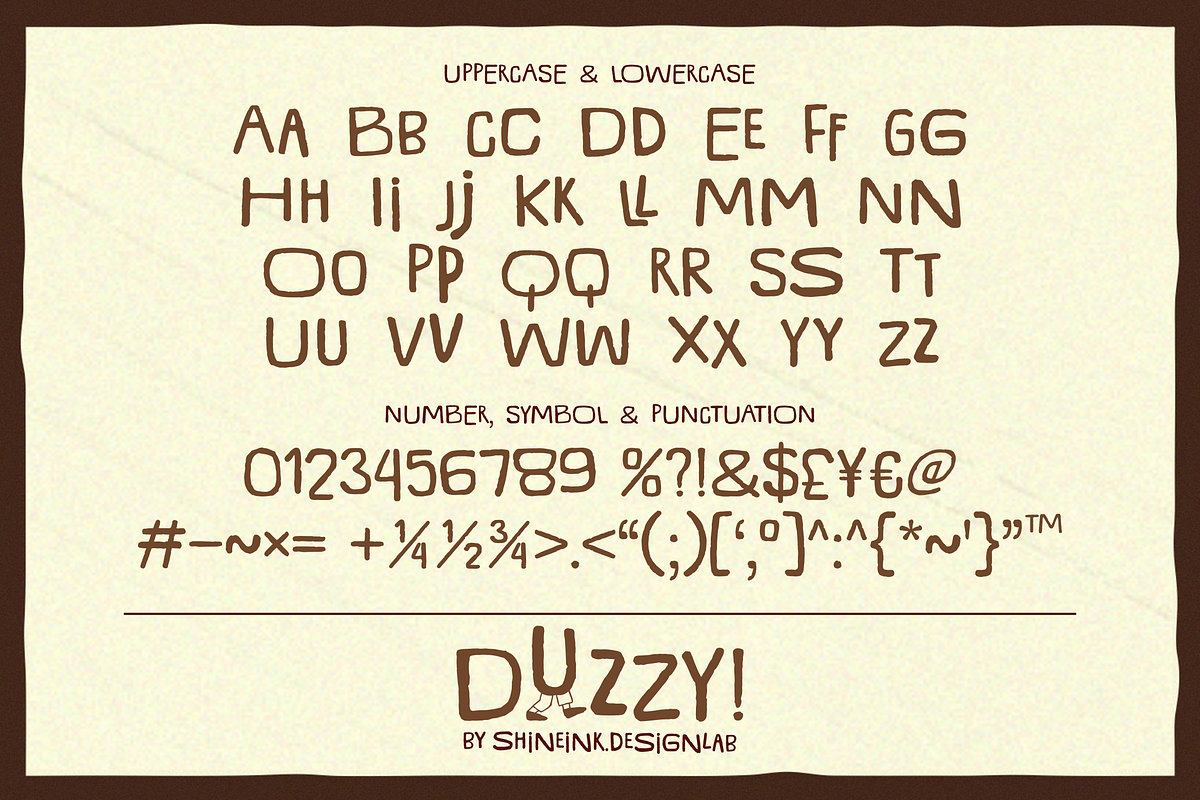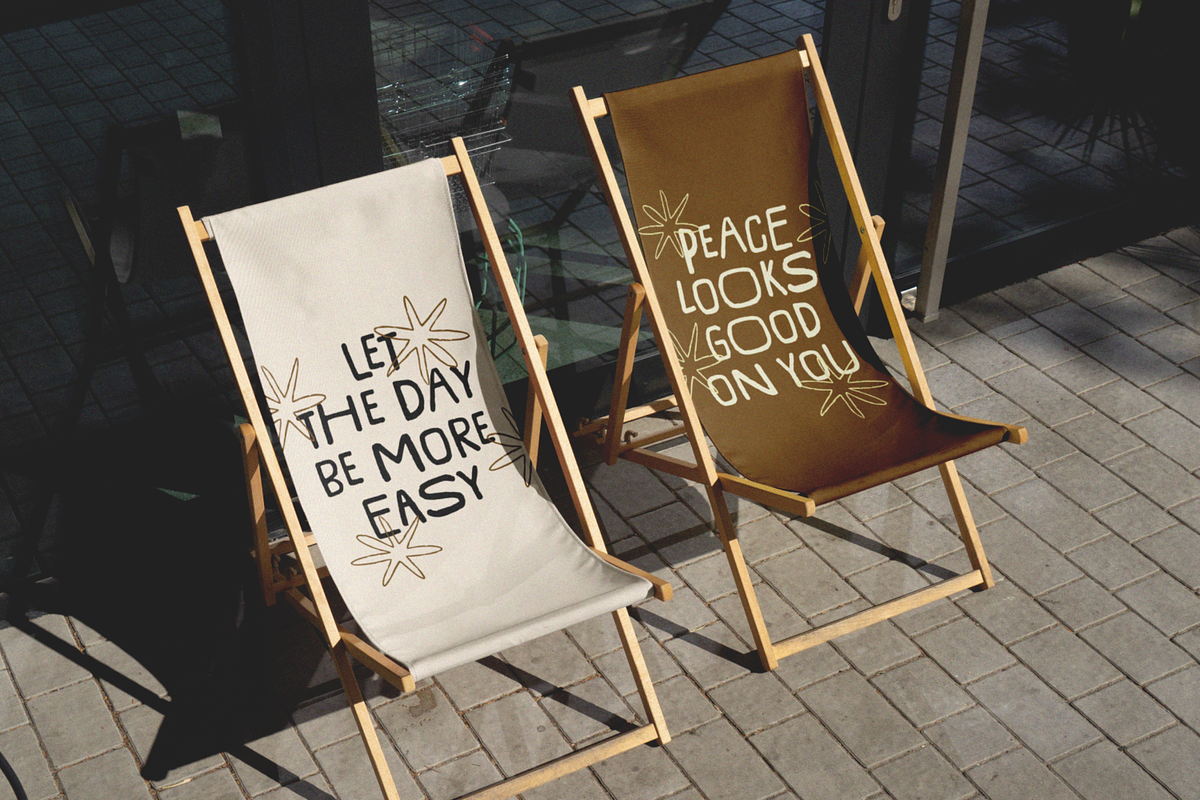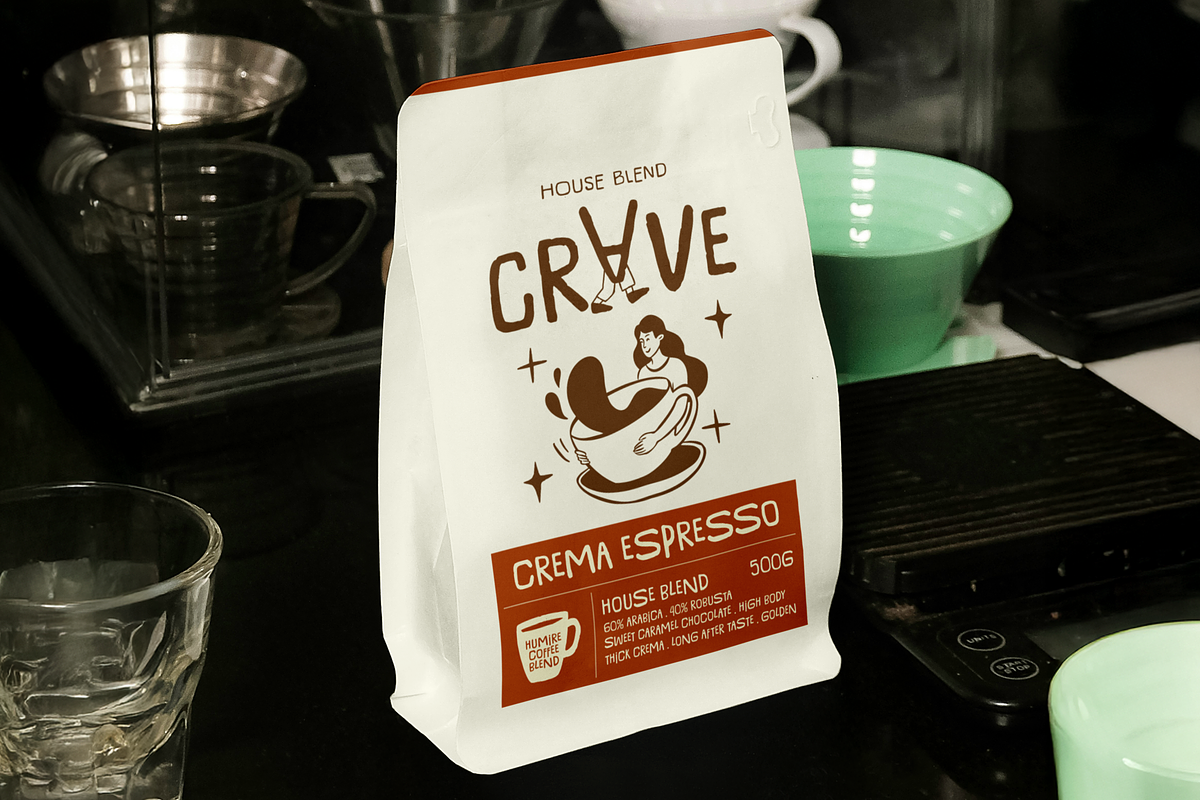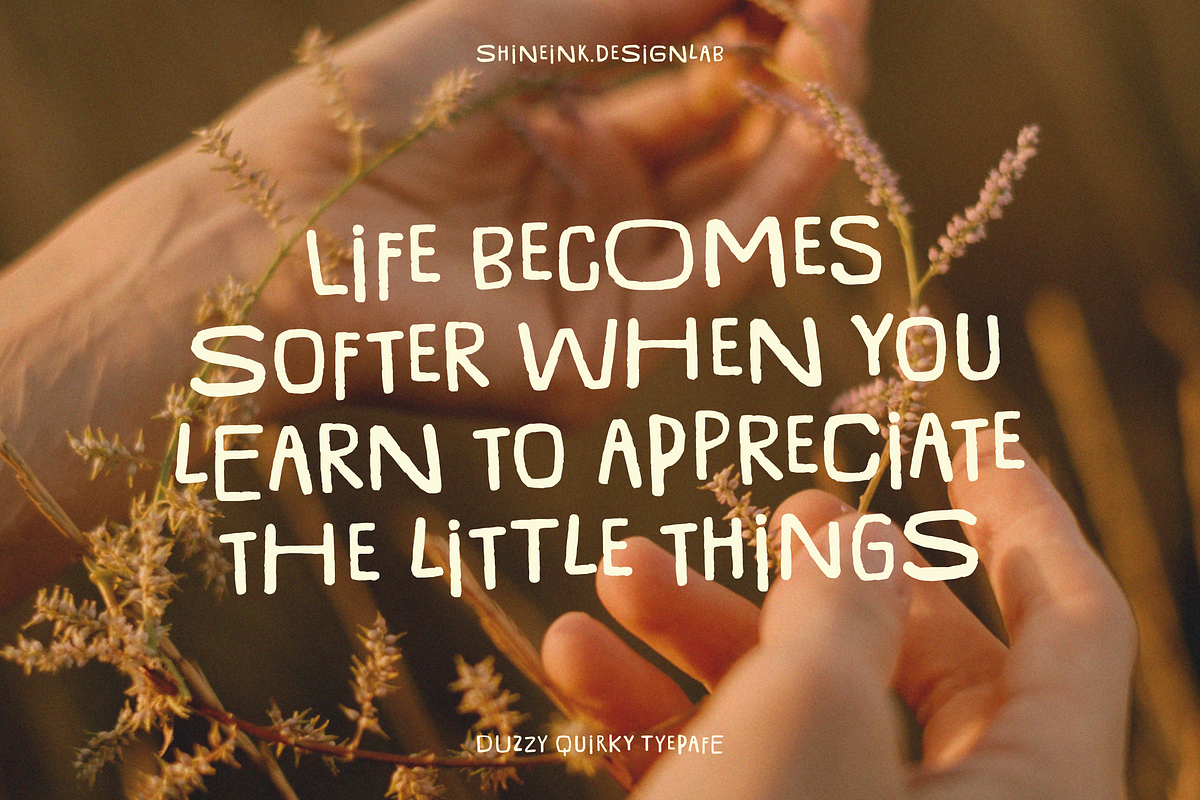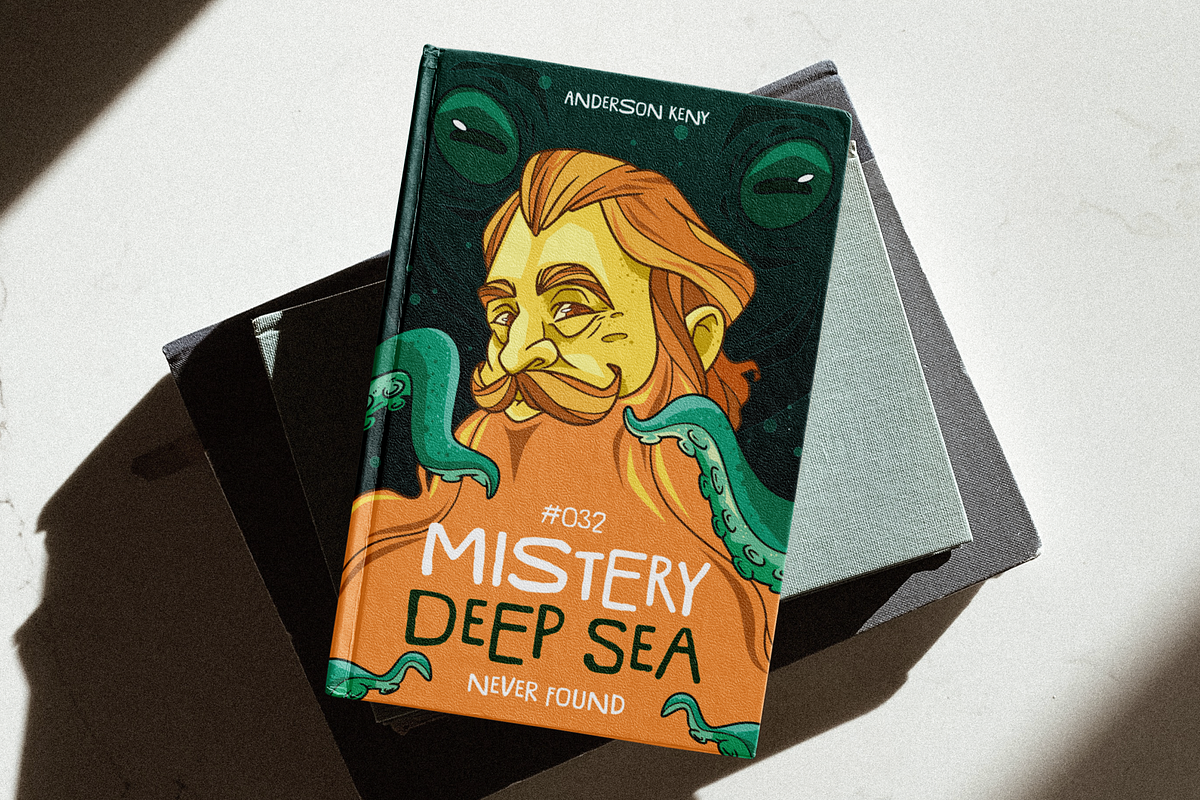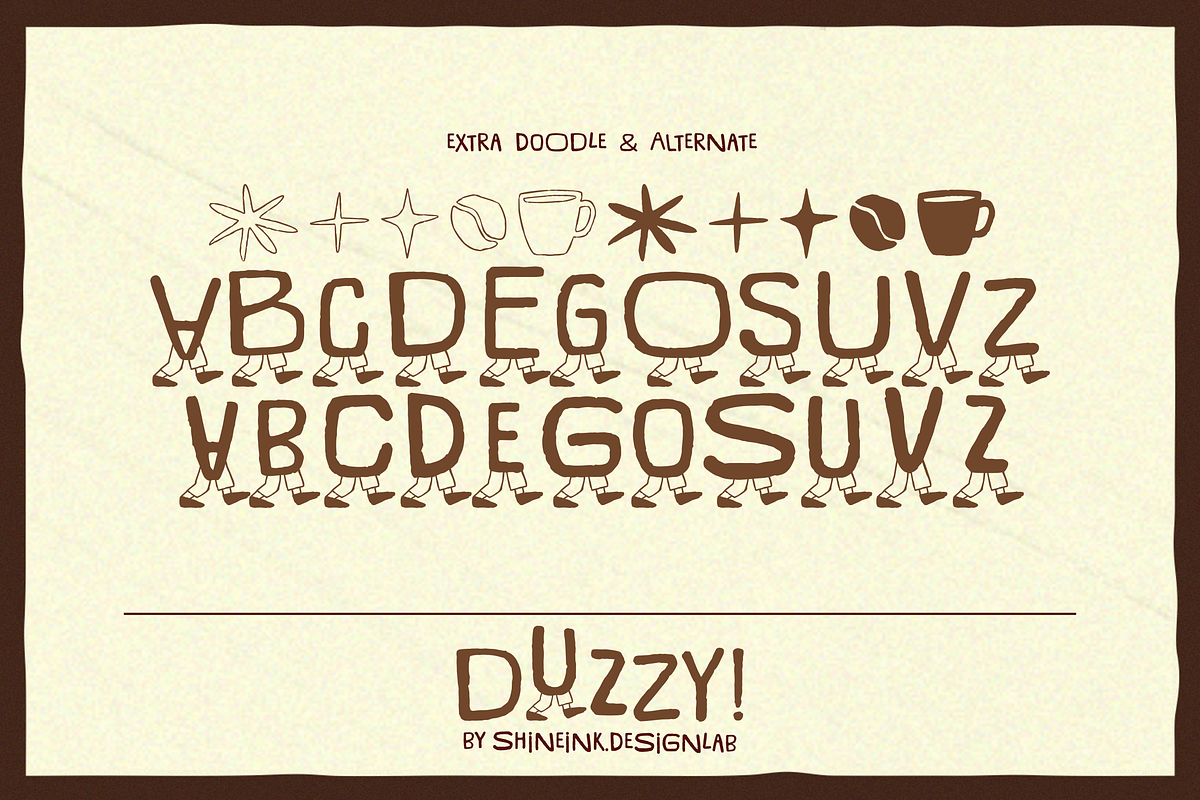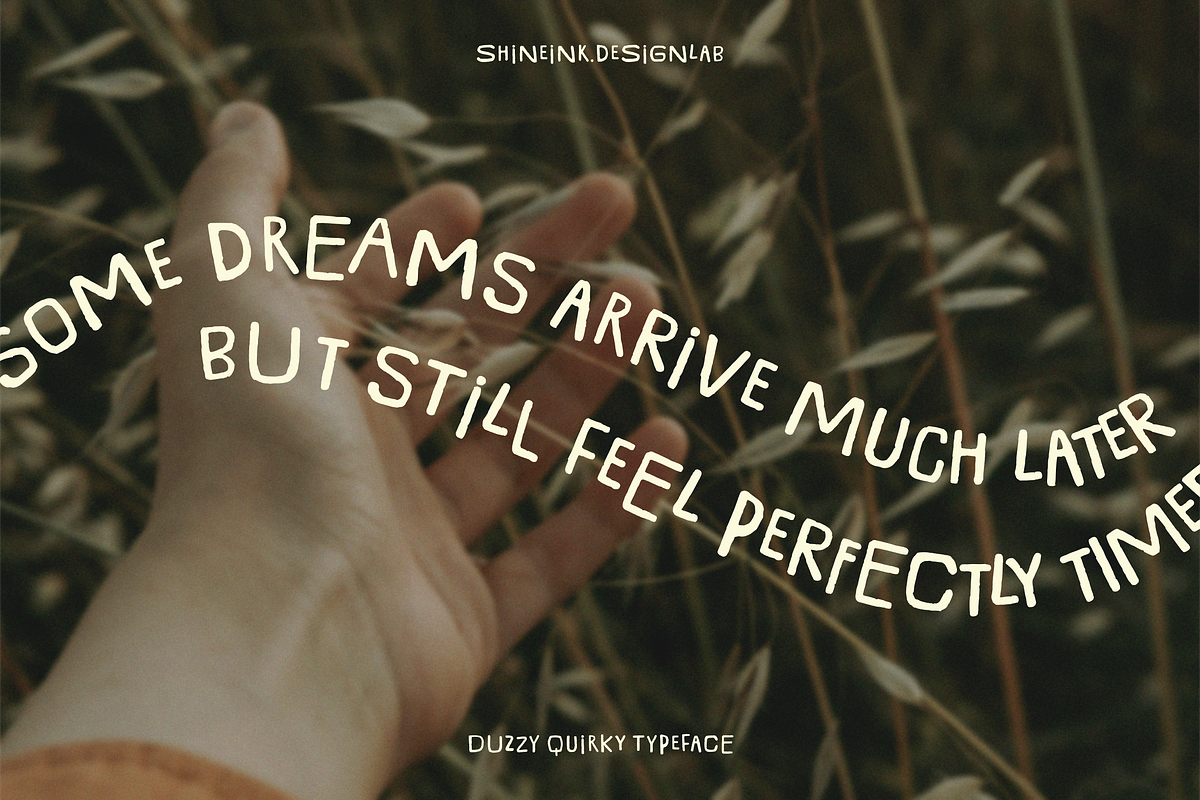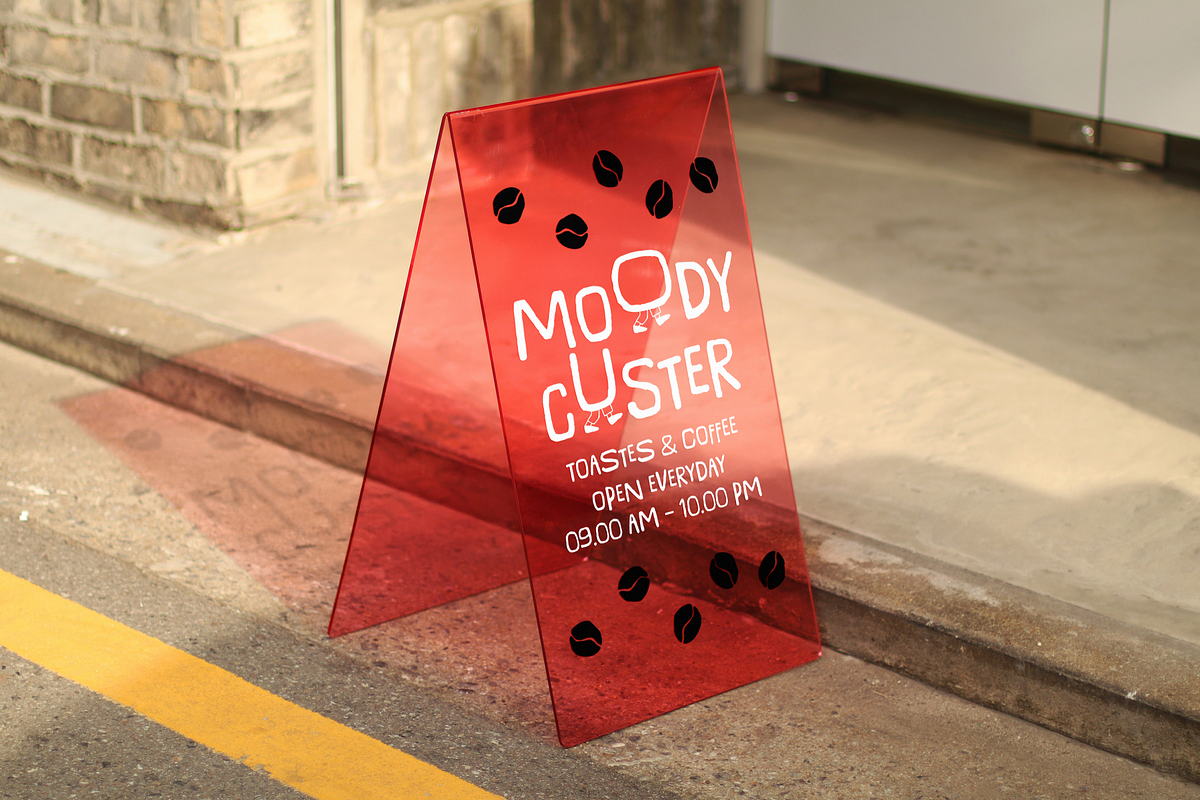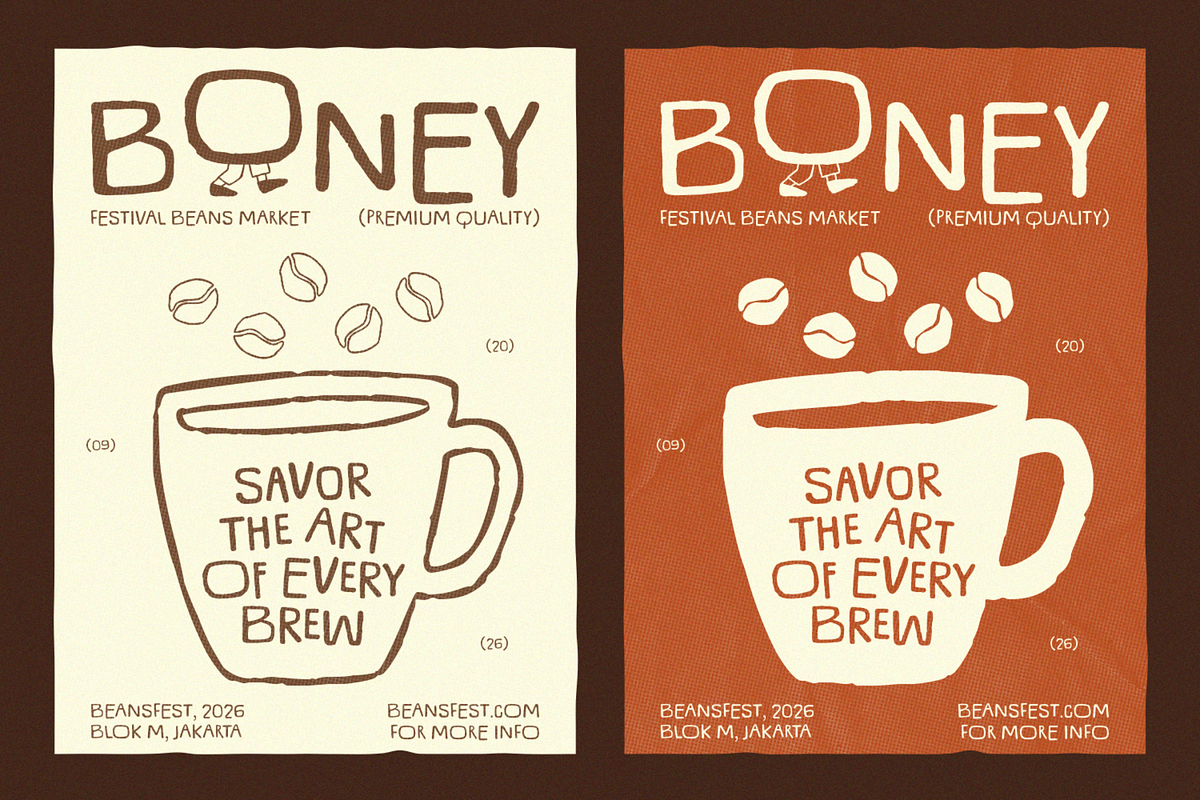
Duzzy – Quirky Display Typeface
Meet Duzzy, a quirky and expressive hand-drawn display typeface created to bring a playful, imperfect, and distinctive personality to your designs.
Featuring organic strokes, subtle hand-drawn texture, and charmingly irregular letterforms, Duzzy captures the natural character of handmade lettering. Its playful imperfections give every word a unique and authentic feel, making it a great choice for designs that need a creative and personal touch.
Duzzy works beautifully for a wide range of creative projects, from branding and packaging to posters, apparel, social media graphics, stationery, and typography artwork. Its relaxed and whimsical character makes it especially suitable for designs that aim to feel friendly, artistic, casual, and full of personality.
The typeface also includes unique extra characters and alternate styles, allowing you to mix and match letterforms and create more natural and personalized typography.
1. Lowercase and Uppercase
2. Numerals & Punctuation
3. Accented characters
4. Multiple Languages Supported
6. Unique Alternate Uppercase & Lowercase
7. Extra Doodle in Alternate Number
Whether you're designing something playful, artistic, nostalgic, or simply looking for a typeface with a more human touch, Duzzy brings a charmingly imperfect character to every project.